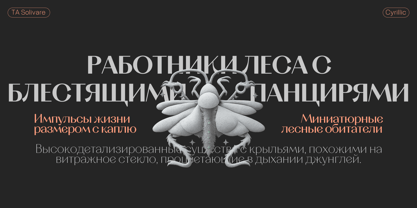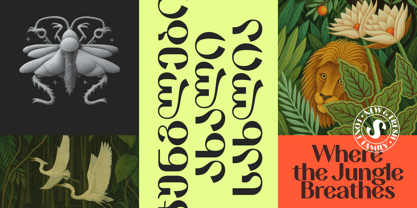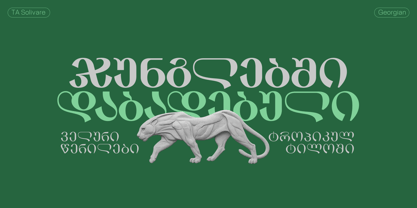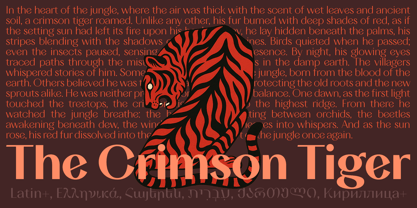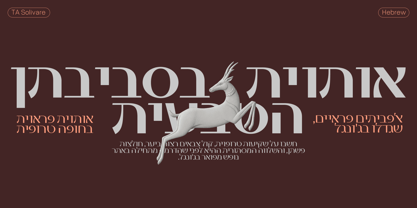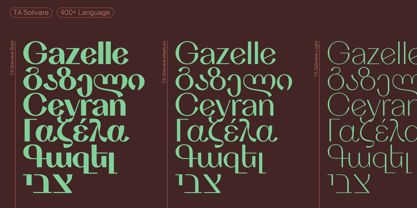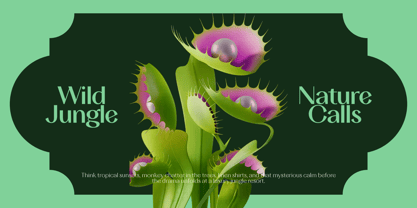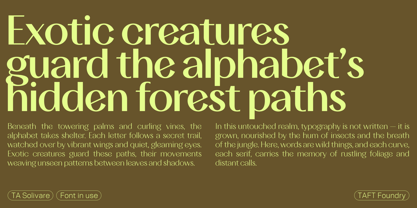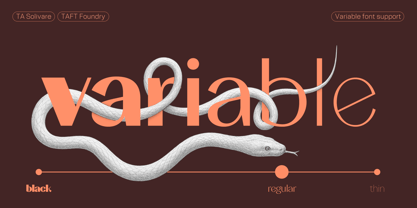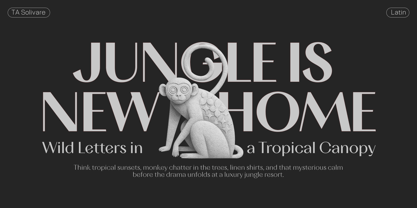
TA Solivare is a high-contrast display typeface rooted in classical visual structure but stripped of traditional serif detailing. It features sharp angles, stable rhythm, and a clear sense of construction, making it ideal for prominent use in editorial headlines, brand identities, and cultural communication.
TA Solivare balances visual tension with restraint — offering a distinctive voice without excessive decoration. With six scripts and ten weights, it adapts well across multilingual and multidisciplinary contexts.
🅑 Features
– 10 styles (from Thin to Black)
– Support for 6 writing systems: Latin, Cyrillic, Greek, Hebrew, Georgian, Armenian
– 2050+ glyphs
– OpenType features:
• Standard Ligatures
• Contextual Alternates
• Stylistic Sets
• Subscript / Superscript
• Lining and Tabular Figures
– Carefully hand-kerned
🅒 Recommended Use
– Branding & logotypes
– Editorial design (books, magazines, catalogs)
– Posters and cultural campaigns
– Art and museum identities
– Multilingual and global publishing
– Packaging and invitations
🅓 Language Support
– Latin Extended A & B
– Cyrillic (incl. Russian, Ukrainian, Bulgarian, Serbian, Chuvash, Bashkir, etc.)
– Greek
– Hebrew
– Armenian
– Georgian (Mkhedruli and Mtavruli)
🅔 Tone & Personality
TA Solivare doesn’t try to be loud — but it stands firmly in place. Its tone is sharp, deliberate, and culturally adaptable. It’s not quite modern, not fully retro — but something quietly present in between. Its multi-script support gives it technical depth, while its visual rhythm adds just enough expression to make it memorable in use.